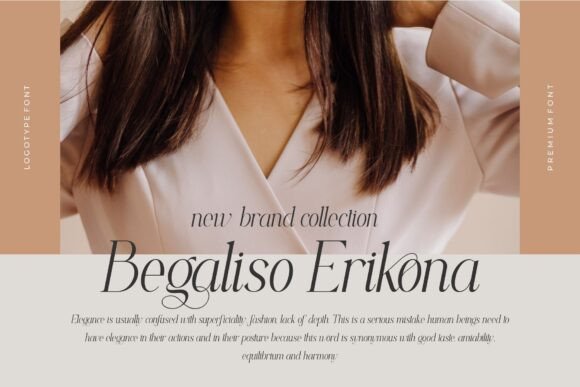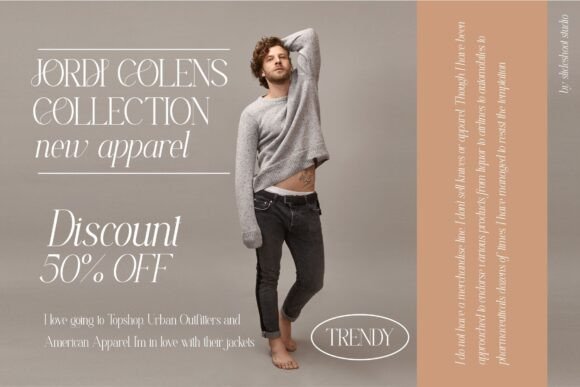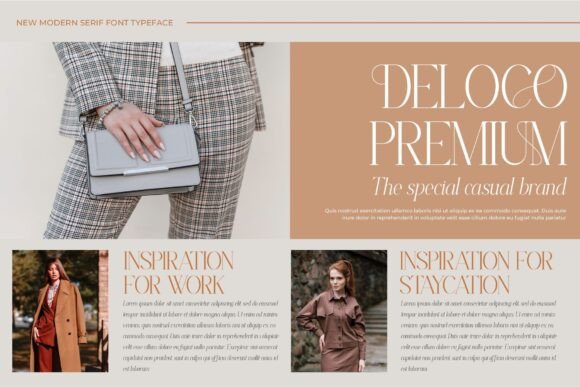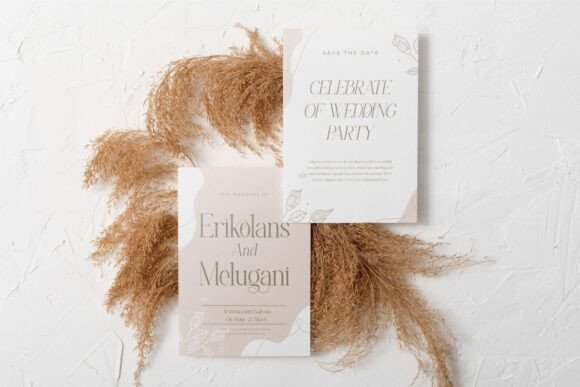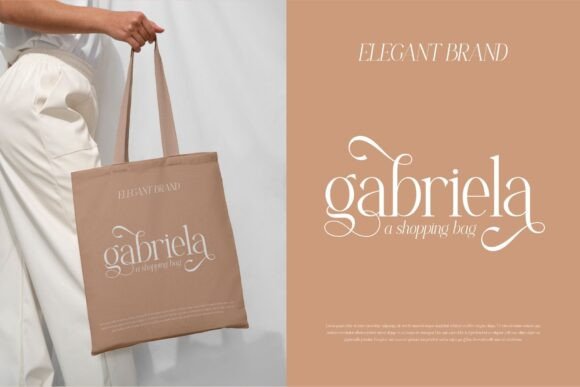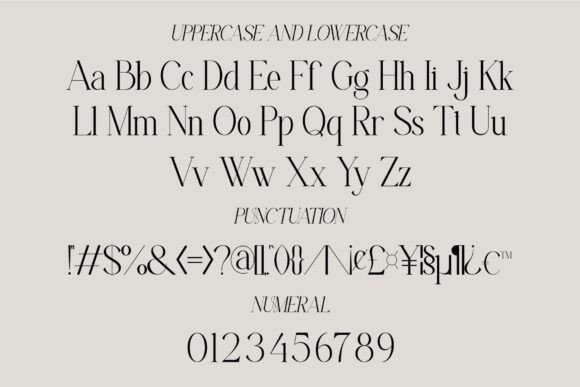
Ficoria Font: Elevate Your Design with Elegance and Sophistication
In the world of typography, a font can make or break a design project. For designers and crafters seeking a refined and contemporary look, Ficoria Font is an exceptional choice. This beautifully crafted serif font boasts a unique blend of traditional and modern elements, making it perfect for a wide range of applications, from logos and invitations to upscale branding and minimalist design projects.
A Refined Serif Font with a Contemporary Twist
Ficoria Font is characterized by its clean lines, sophisticated curves, and a distinctive italic twist. This thoughtful design combination results in a font that exudes elegance and sophistication, making it ideal for projects where a touch of refinement is desired. The font’s serif elements add a sense of tradition and timelessness, while its contemporary feel ensures it remains fresh and modern.
Beautiful Ligatures and Multilingual Support
One of the standout features of Ficoria Font is its beautiful ligatures, which add an extra layer of elegance to any text. Ligatures are special character combinations that replace standard character pairs, creating a more fluid and harmonious reading experience. Ficoria’s ligatures are meticulously designed to enhance the overall aesthetic of your text, making it perfect for high-end designs. Additionally, Ficoria Font offers multilingual support, ensuring that it can be used across various languages and scripts. This feature is particularly beneficial for designers working on international projects or those who need to accommodate multiple languages.
Ideal for Various Design Projects
Ficoria Font’s versatility makes it suitable for a wide range of design applications. Here are some of the areas where Ficoria truly shines:
- Logos: Create a lasting impression with a logo that embodies sophistication and elegance. Ficoria’s unique character makes it an excellent choice for logotypes.
- Invitations: Whether you’re designing wedding invitations, event invites, or formal announcements, Ficoria adds a touch of class and refinement.
- Upscale Branding: Elevate your brand’s visual identity with a font that communicates luxury, quality, and attention to detail.
- Minimalist Design Projects: For designers who appreciate simplicity and elegance, Ficoria provides a beautiful foundation for minimalist designs, offering a clean yet sophisticated look.
Why Choose Ficoria Font?
With so many fonts available, why choose Ficoria? Here are a few compelling reasons:
- Unique Design: Ficoria’s blend of traditional serif elements and contemporary italic twists sets it apart from more common fonts.
- Elegance and Versatility: Its sophisticated look makes it versatile enough to be used in various design contexts, from luxury branding to elegant invitations.
- Multilingual Support: Cater to a global audience with a font that supports multiple languages.
- Beautiful Ligatures: Enhance your text with elegant ligatures that add a professional touch to any project.
Ficoria Font is a remarkable addition to any designer’s toolkit. Its refined serif design, combined with a contemporary italic twist, beautiful ligatures, and multilingual support, makes it an excellent choice for a variety of projects. Whether you’re aiming to create a stunning logo, an elegant invitation, or upscale branding materials, Ficoria offers the perfect blend of elegance and sophistication. Explore the possibilities with Ficoria Font and elevate your designs to new heights of refinement and style.
Discover the beauty of Ficoria Font for yourself and experience how it can transform your design projects with its unique blend of tradition and modernity.